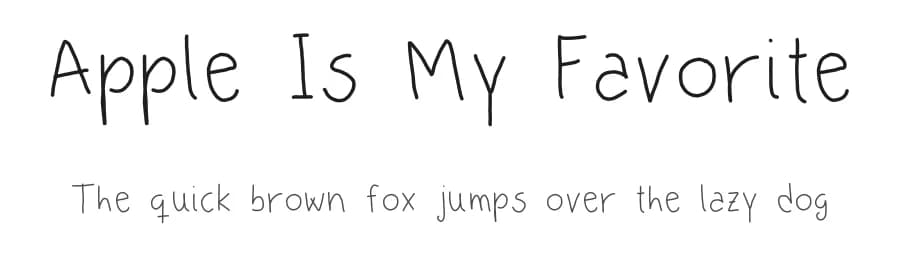
About Apple Is My Favorite Font
Apple Is My Favorite is a script & handwritten font designed by D; Jov. It includes 171 glyphs, a medium weight, TTF (TrueType) format, and 170 languages. Apple Is My Favorite is free to download; check the license details on this page before commercial use. Script & handwritten fonts like Apple Is My Favorite work best for wedding invitations, greeting cards, signatures, and elegant branding.
Apple Is My Favorite Font is a script font that shines as a display or heading face. Pair it with a clean sans-serif or serif font for body text β the contrast creates a clear hierarchy while the two styles stay balanced and easy to read.
Apple Is My Favorite Font